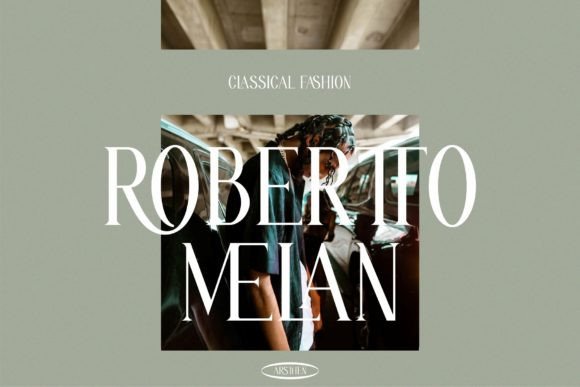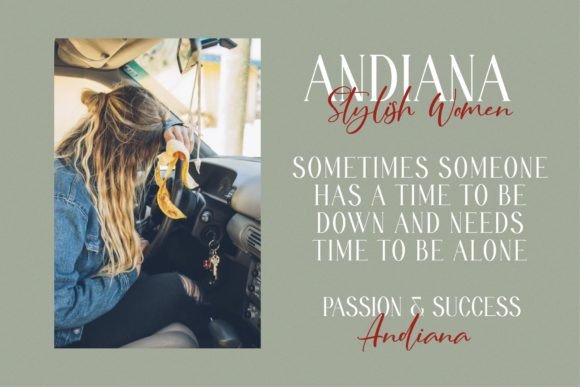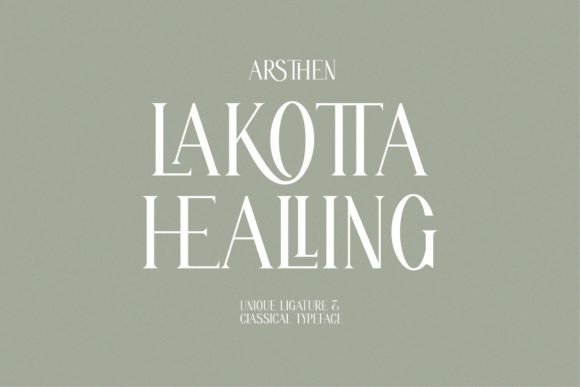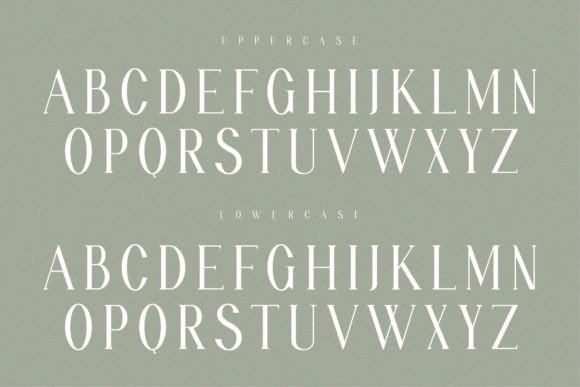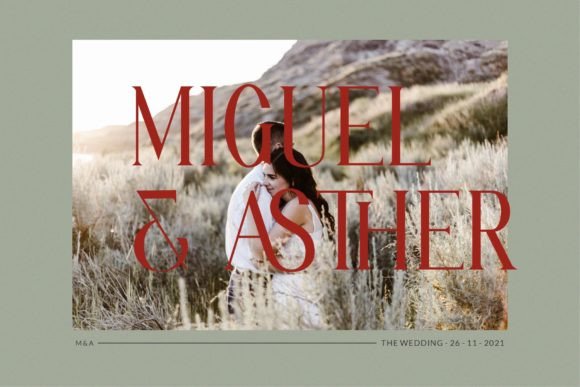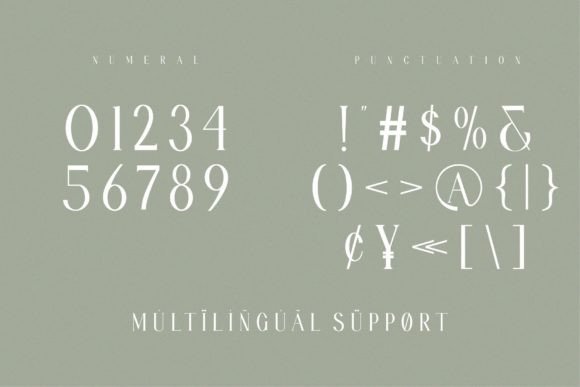
Introducing Arsthen Font: Elevate Your Designs with Elegance and Sophistication
In the world of typography, a font can make or break the visual appeal of a design. For designers and crafters seeking to add a touch of class and elegance to their work, Arsthen Font is an excellent choice. This stunning serif font is designed to bring a sense of sophistication and style to a wide range of applications, from branding and logos to editorial designs, labels, and social media posts.
The Characteristics of Arsthen Font
Arsthen Font is a classy and elegant serif font that exudes refinement and luxury. Its stylish and trendy design makes it perfect for designers who want to create visually appealing and cohesive brand identities. The font’s serif features add a touch of sophistication, making it ideal for applications where a high-end look is desired.
One of the standout features of Arsthen Font is its versatility. Whether you’re working on a logo, editorial design, or social media post, this font is sure to elevate your design and make it stand out. Its elegant design ensures that it can be used across various platforms and mediums, from print to digital.
Arsthen Font is PUA (Private Use Area) encoded, which means that accessing all the glyphs and ligatures is a breeze. PUA encoding allows designers to access a wide range of characters and symbols that are not available in standard fonts. This feature makes Arsthen Font incredibly user-friendly, saving designers time and effort when working on complex designs.
With PUA encoding, designers can easily access and use the font’s various features, including ligatures, stylistic alternates, and swashes. This level of flexibility makes Arsthen Font an excellent choice for designers who want to create unique and customized designs.
Applications of Arsthen Font
Arsthen Font is perfect for a wide range of applications, including:
- Branding: Create a lasting impression with a sophisticated brand identity that showcases your company’s values and personality.
- Logos: Design a memorable logo that stands out from the competition and reflects your brand’s elegance and style.
- Editorial Designs: Add a touch of sophistication to your editorial designs, such as magazines, newspapers, and books.
- Labels: Create eye-catching labels that showcase your product’s personality and style.
- Social Media Posts: Elevate your social media posts with a stylish and trendy font that grabs attention and engages your audience.
Why Choose Arsthen Font?
With so many fonts available, why choose Arsthen Font? Here are just a few reasons why designers and crafters love this elegant serif font:
- Unique Design: Arsthen Font boasts a unique and stylish design that sets it apart from other fonts.
- Versatility: This font is perfect for a wide range of applications, from branding and logos to editorial designs and social media posts.
- PUA Encoding: Easy access to glyphs and ligatures makes designing a breeze.
- Elegance and Sophistication: Arsthen Font adds a touch of class and refinement to any design.
In conclusion, Arsthen Font is an excellent choice for designers and crafters seeking to add a touch of elegance and sophistication to their work. Its stylish and trendy design, combined with PUA encoding, makes it perfect for a wide range of applications. Whether you’re working on a branding project, editorial design, or social media post, Arsthen Font is sure to elevate your design and make it stand out.